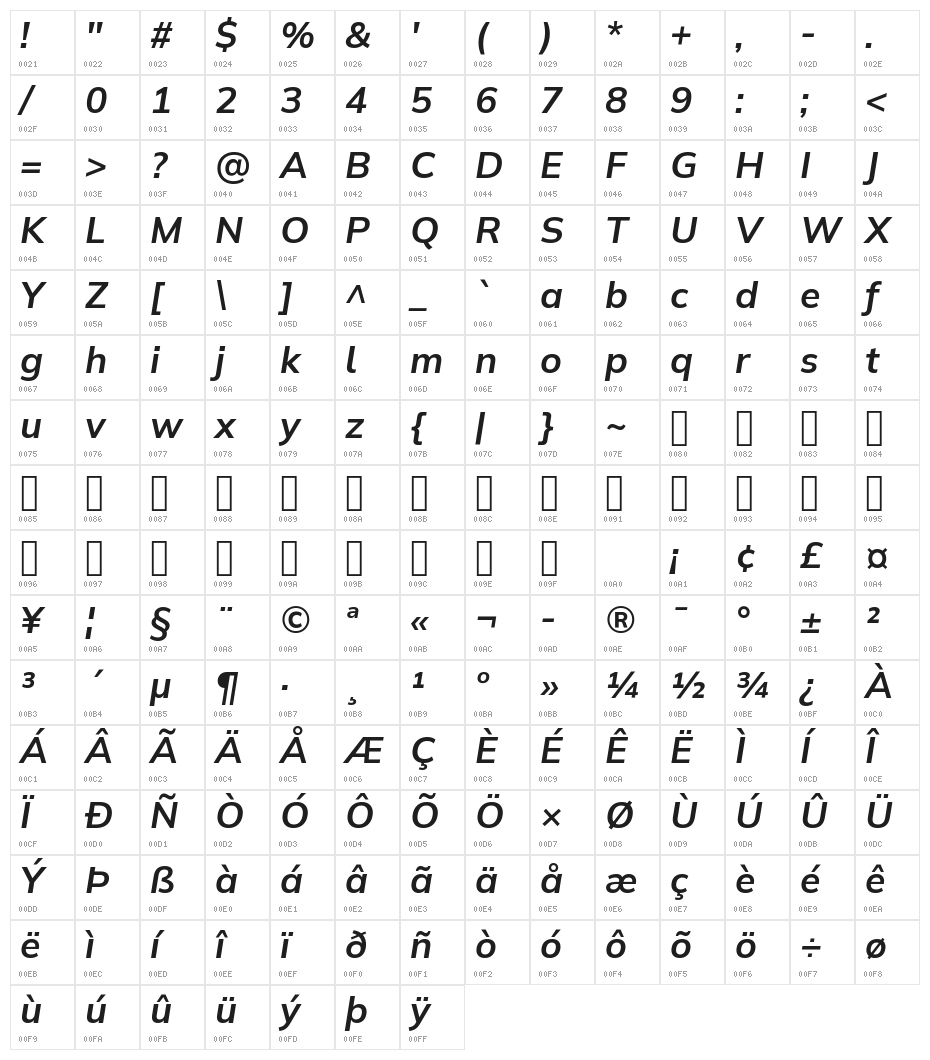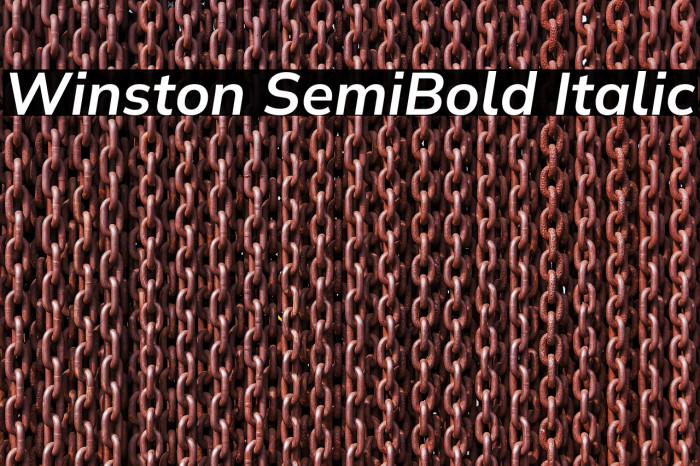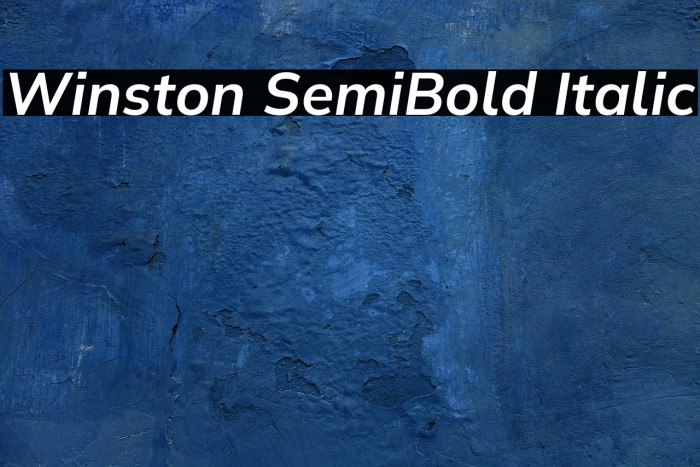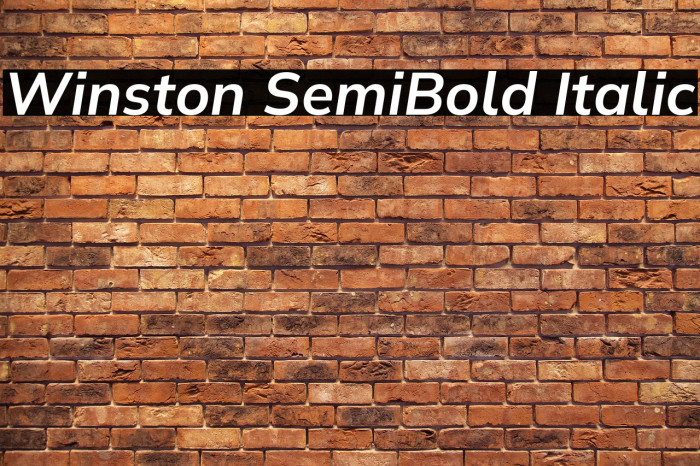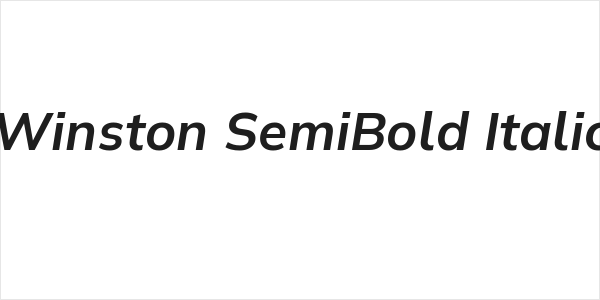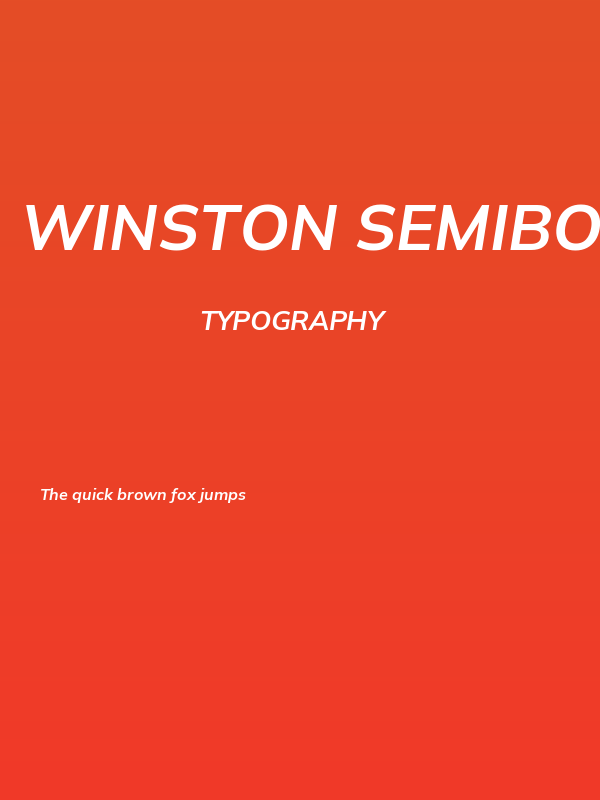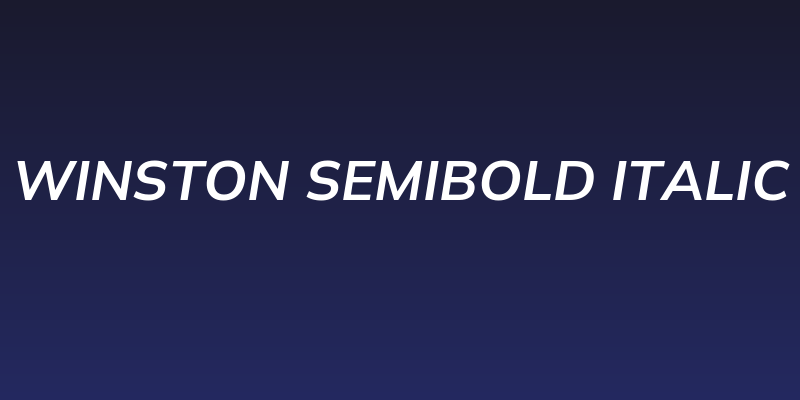
Winston SemiBold Italic Font
Winston SemiBold Italic Description
This font exhibits a sleek and modern design with a semi-bold weight and italic style, providing a dynamic and elegant appearance. The characters are slightly slanted, enhancing the sense of motion and fluidity. The font maintains a clean and professional look, making it suitable for a variety of applications. The uppercase and lowercase letters are well-proportioned, ensuring readability and visual appeal. The numerals and special characters are designed with the same attention to detail, offering a cohesive and harmonious typeface. The overall style is contemporary, with a subtle sophistication that can enhance both digital and print media.